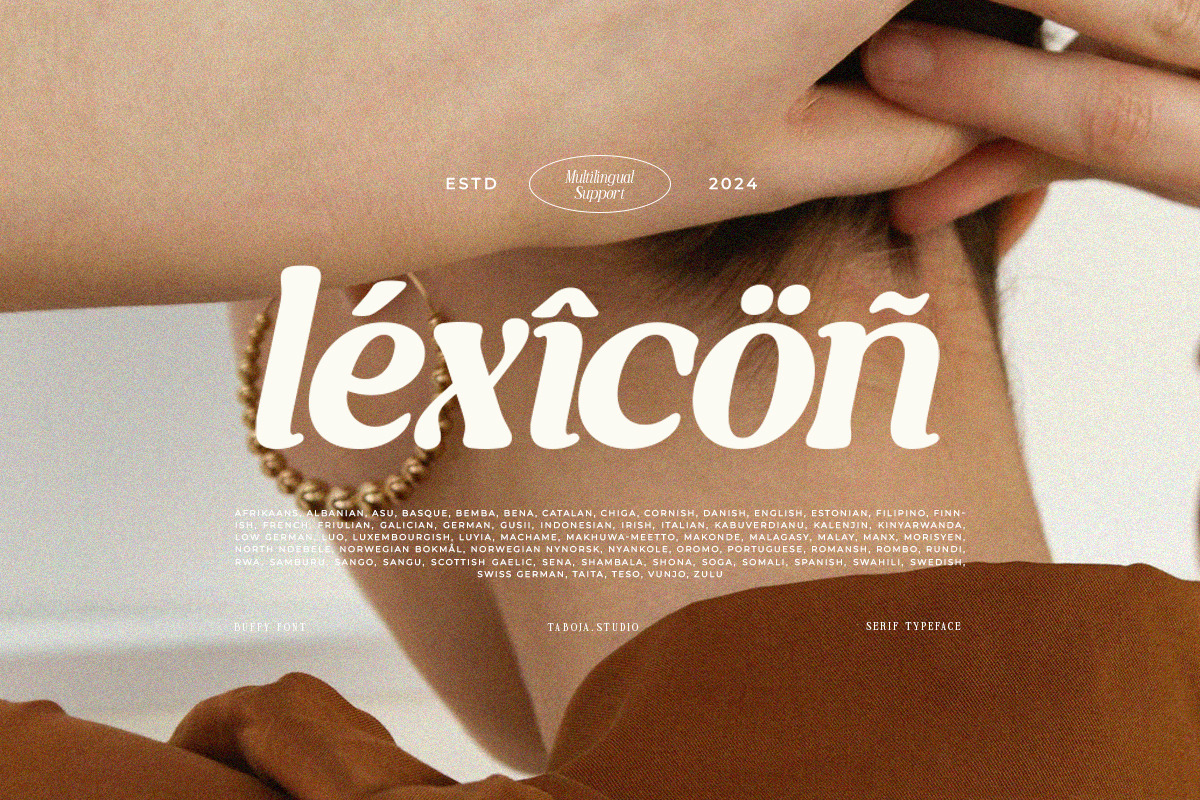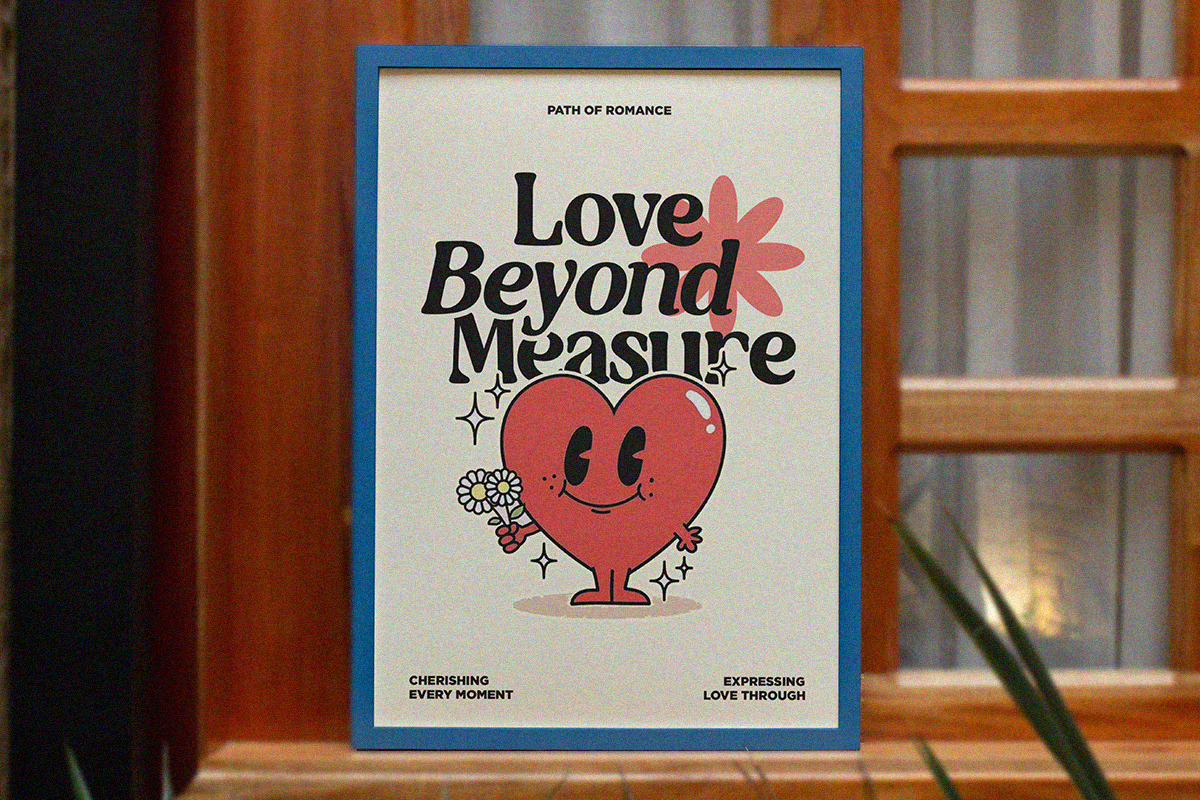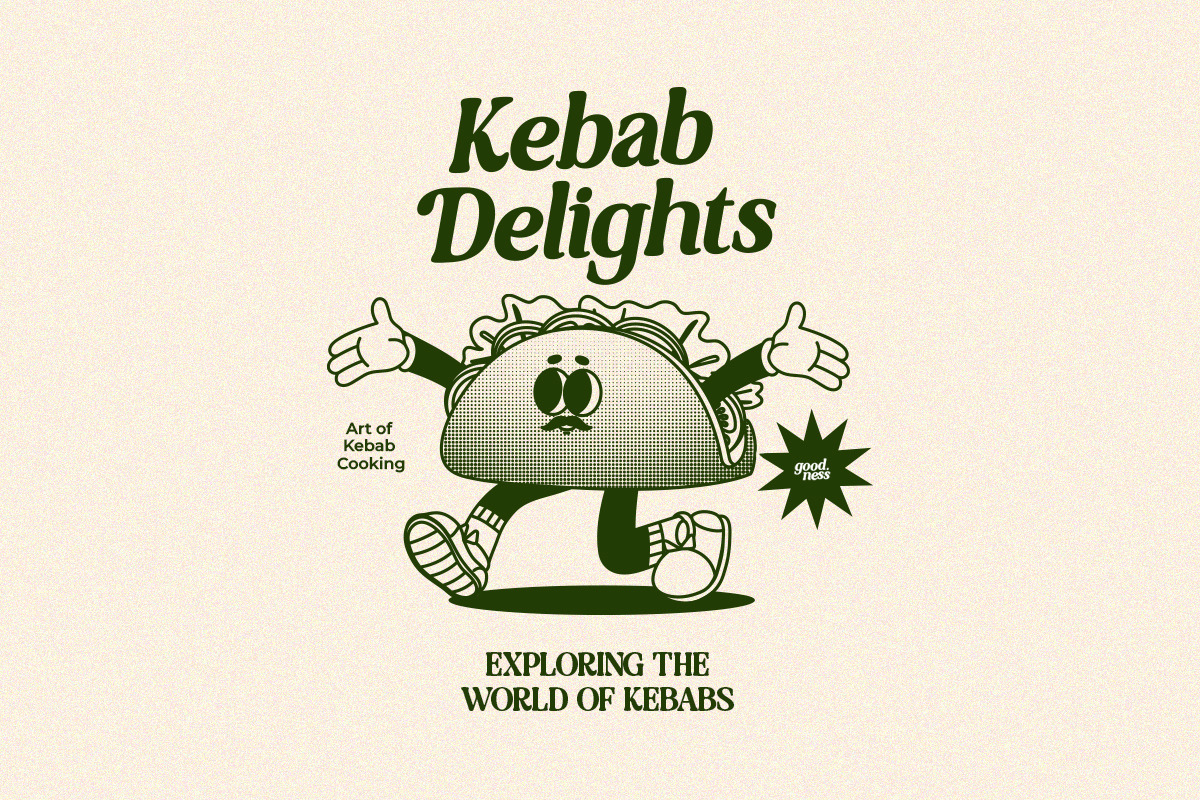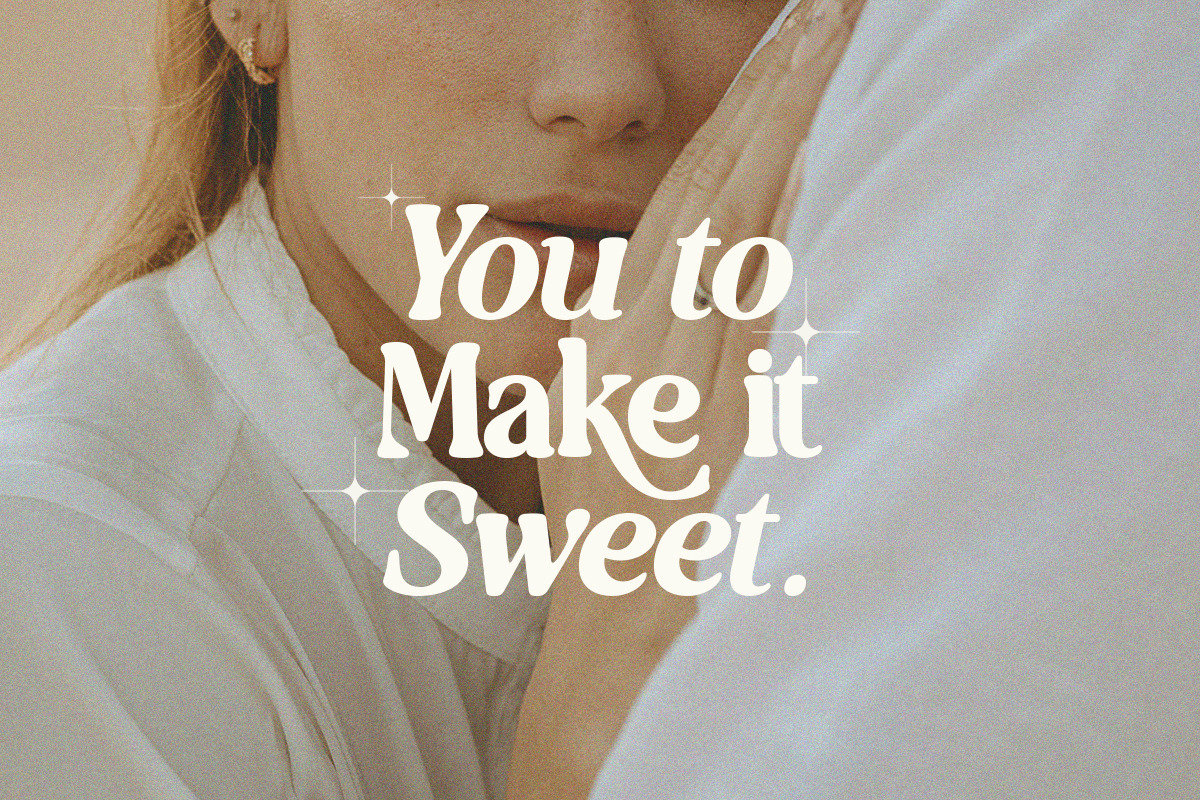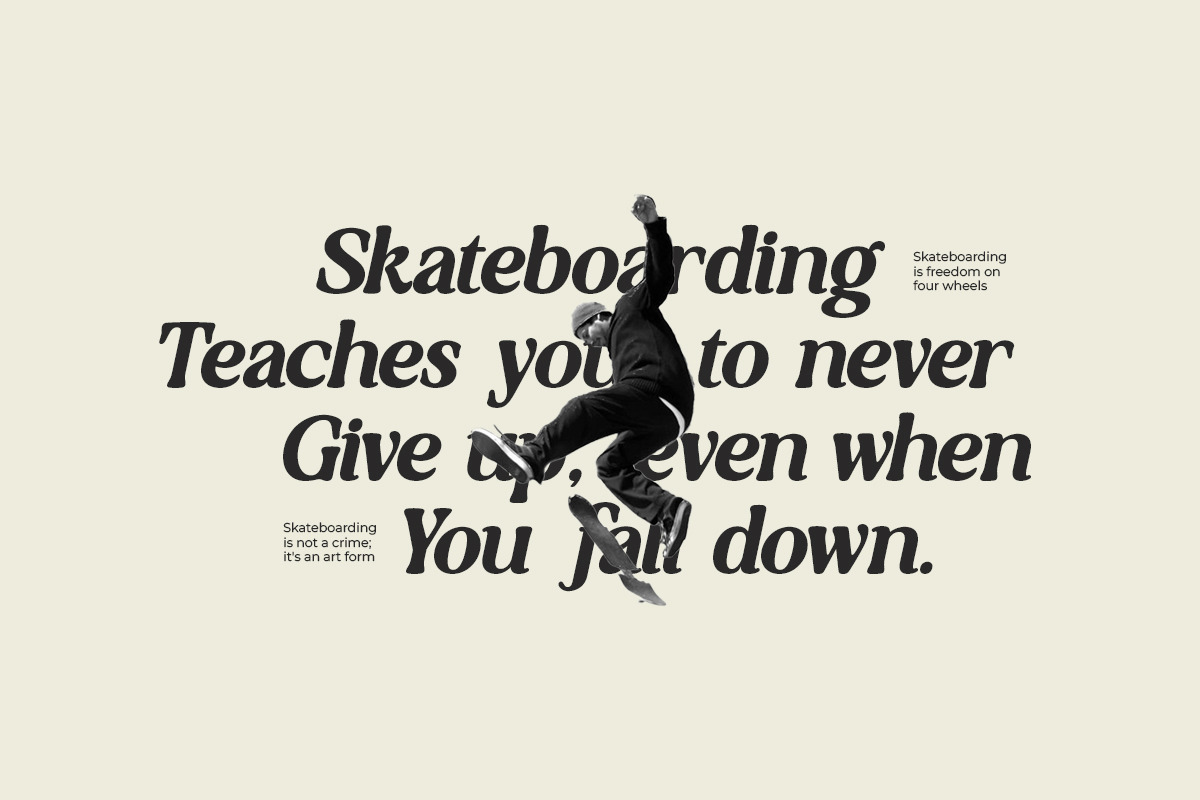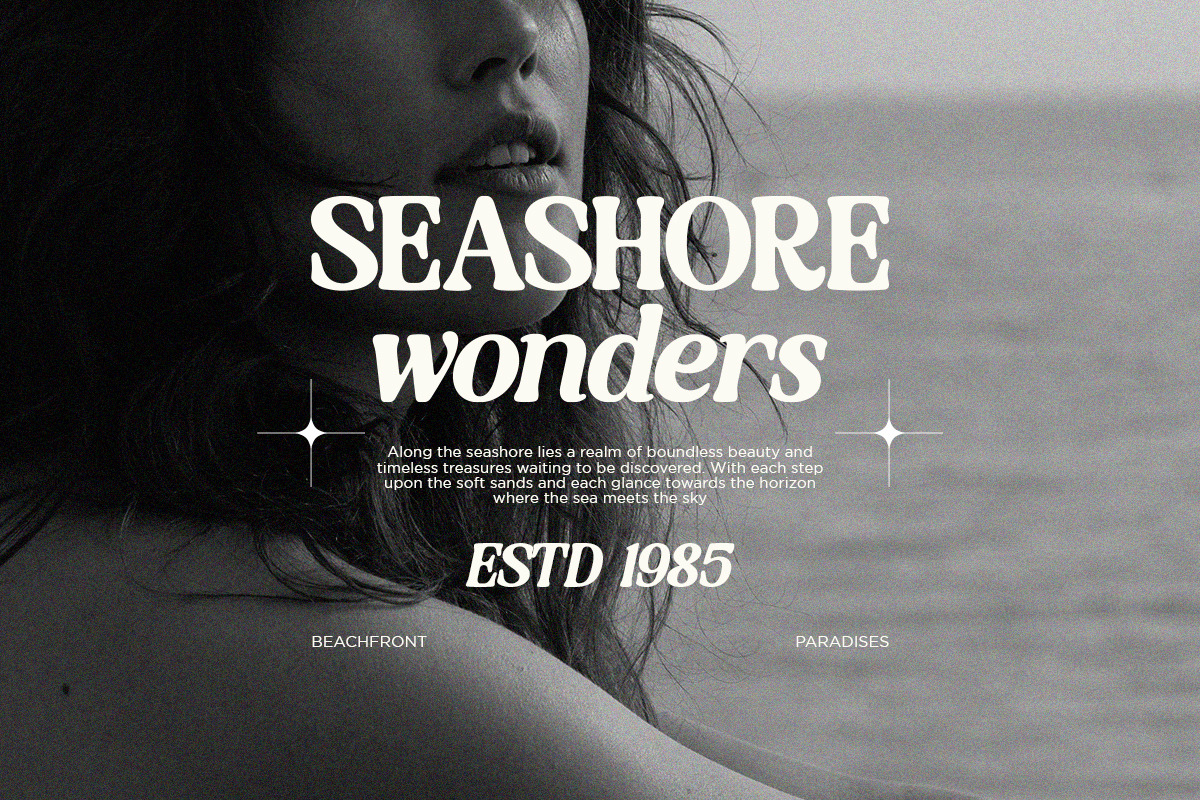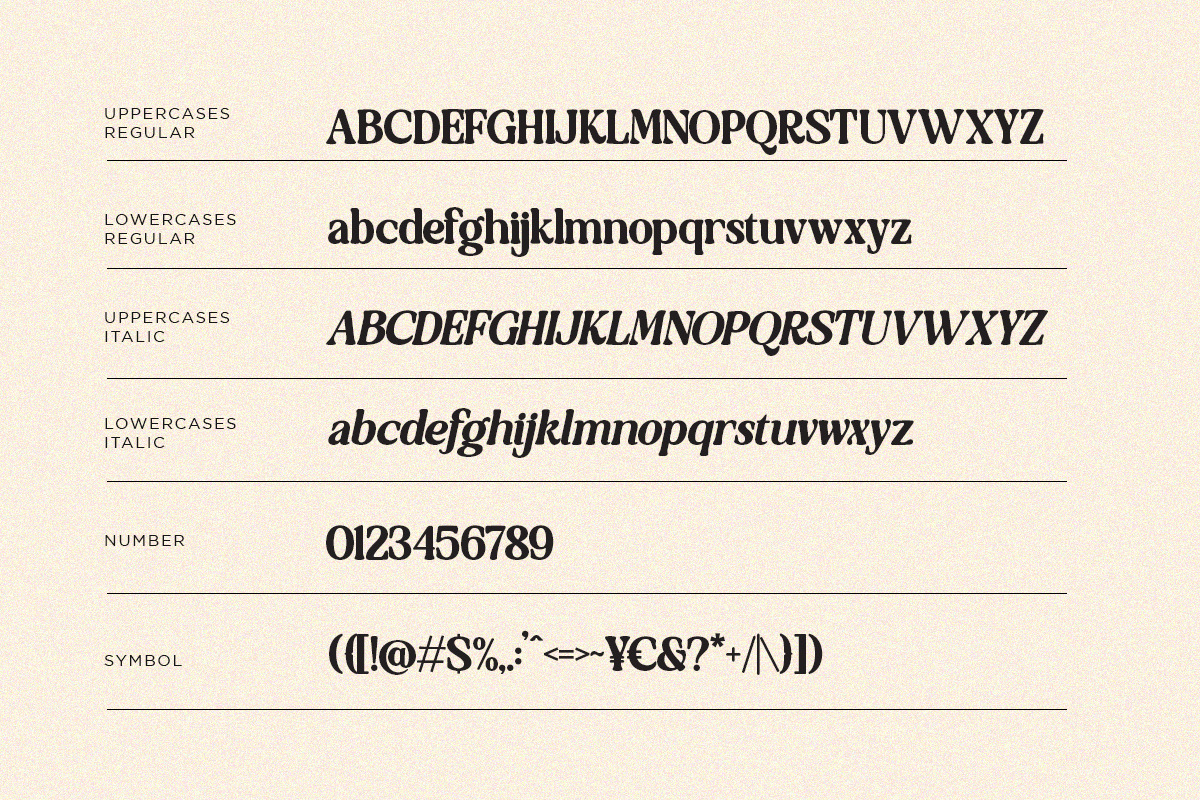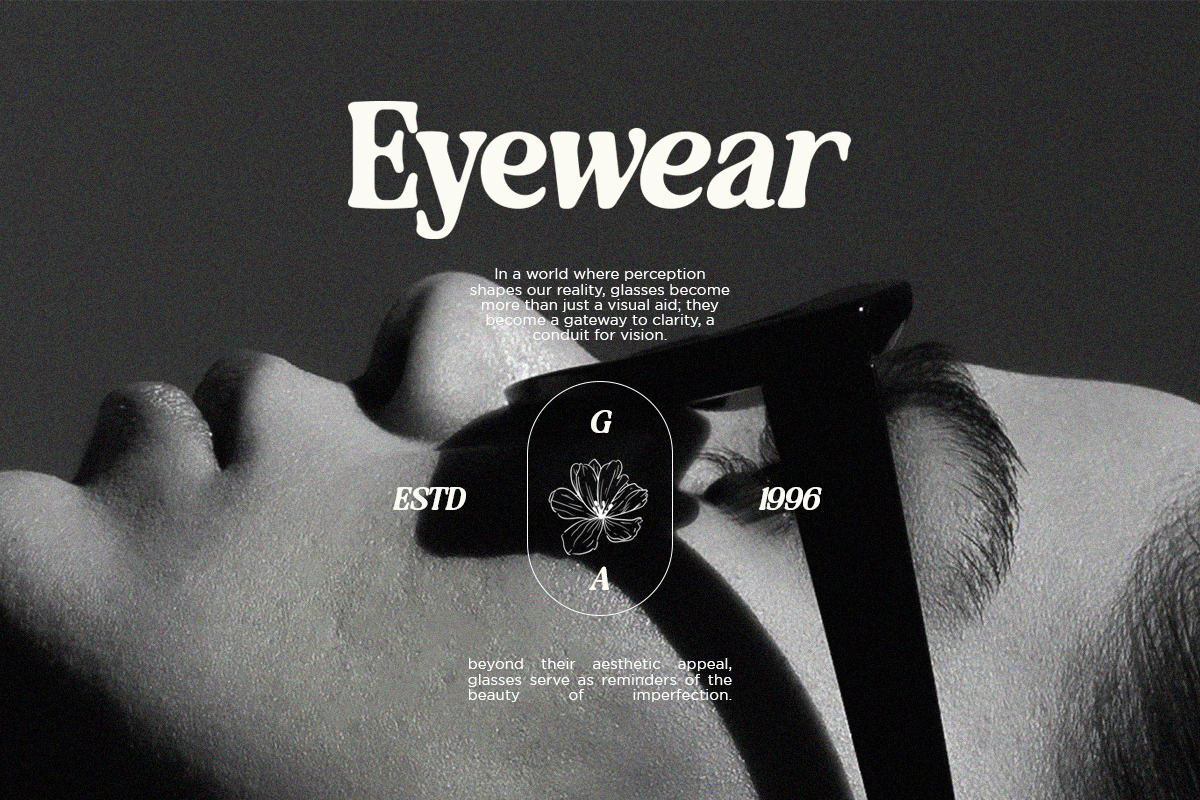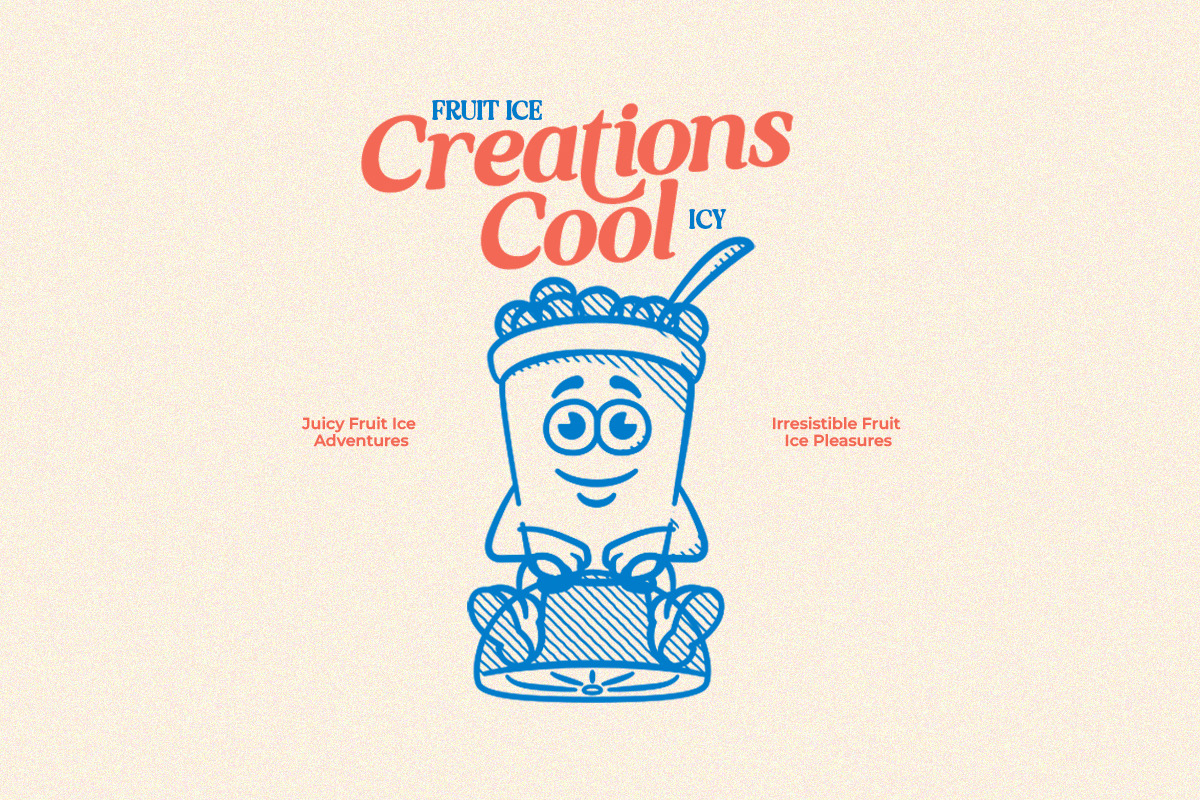
TBJ Buffy - Light & Italic Serif
Say hello to Buffy Serif (Light & Italic), Elegant Serif Typeface with a unique and bold serif display style. This font combines classic serif elements with modern touches, creating visually striking and bold appearance.
Buffy font would be perfect for making ideal graphic design projects, posters, and layouts that require unforgettable visual appeal.
- Light & italic
- Uppercase And Lowercase
- Alternates And Ligatures